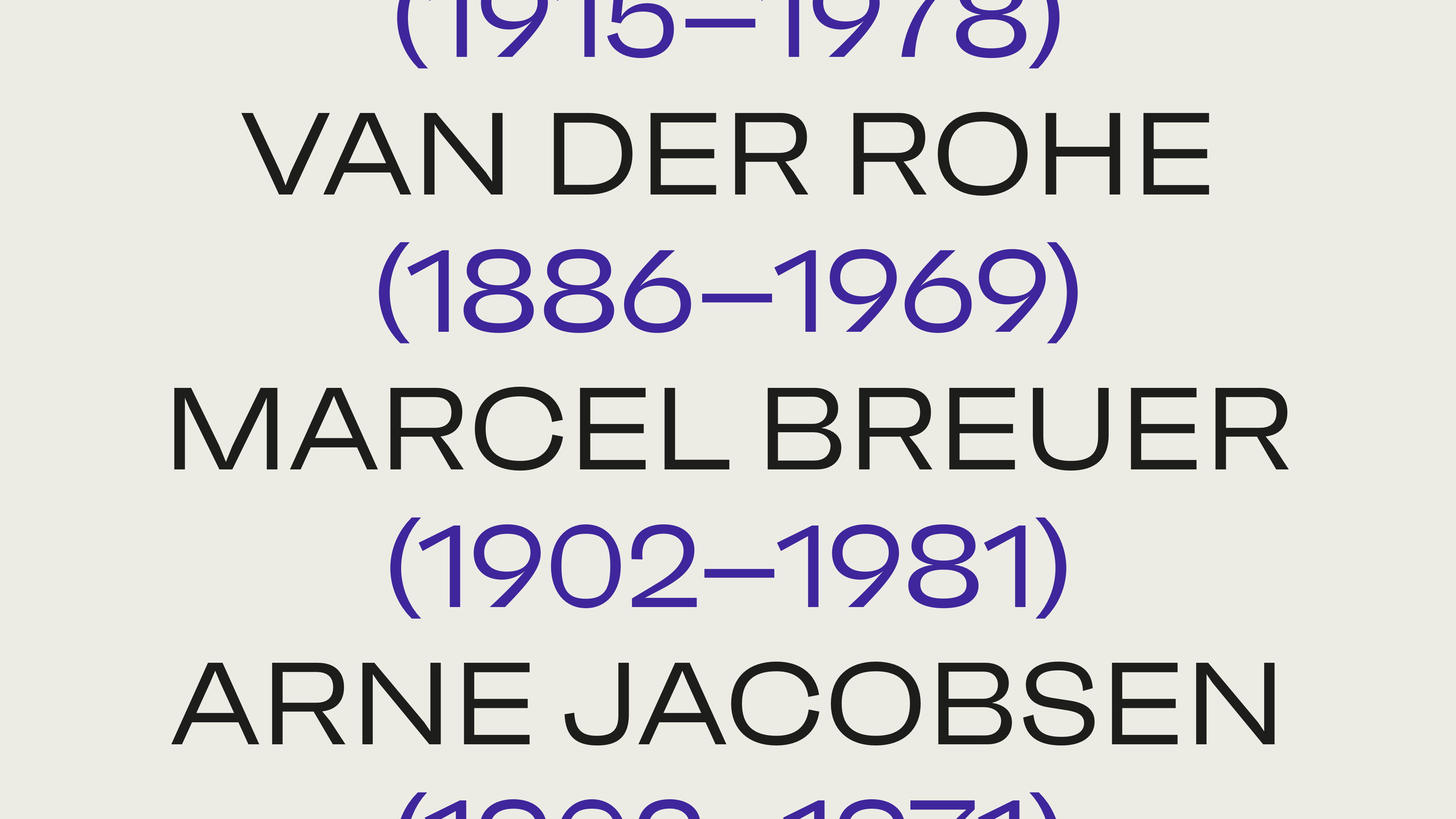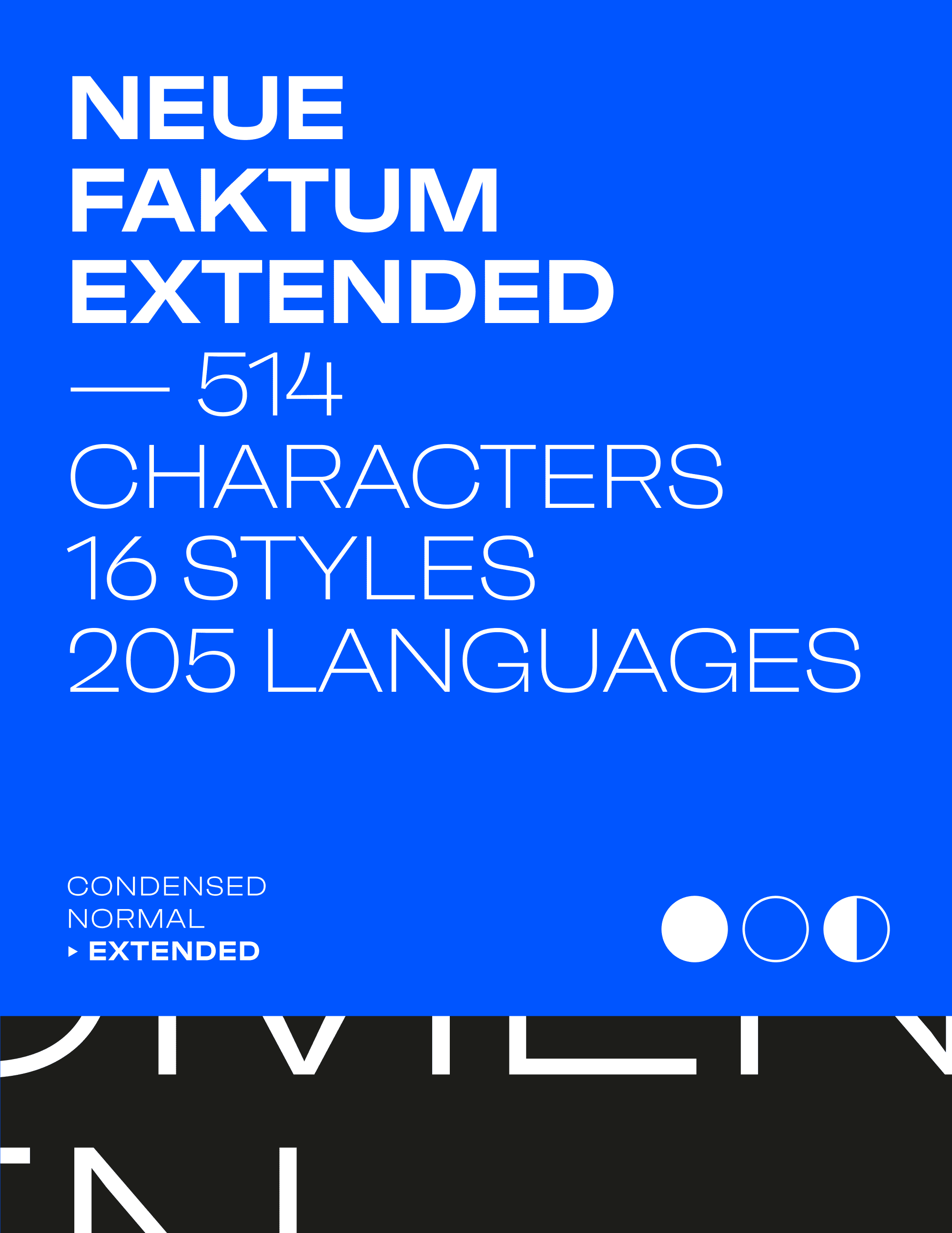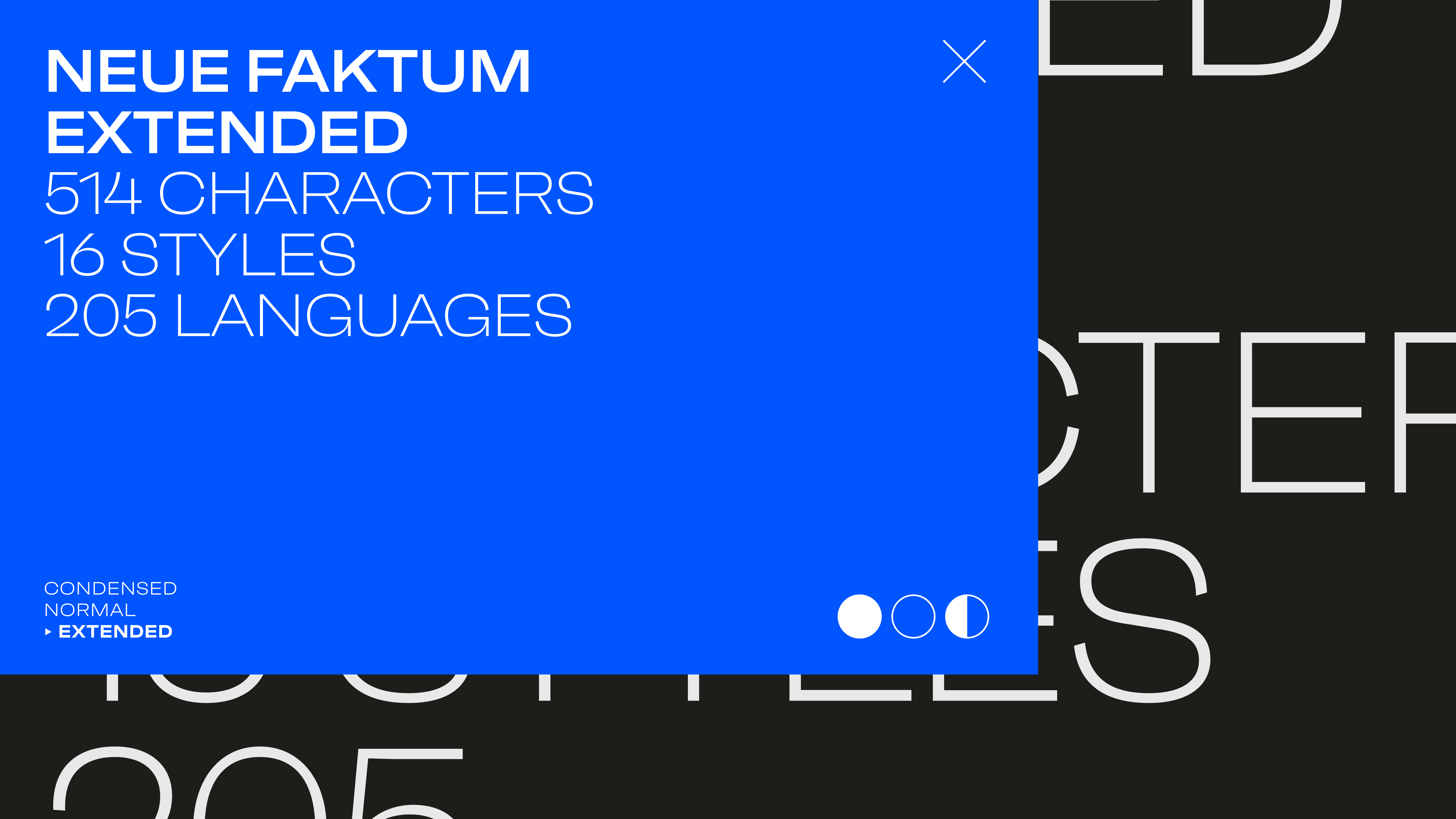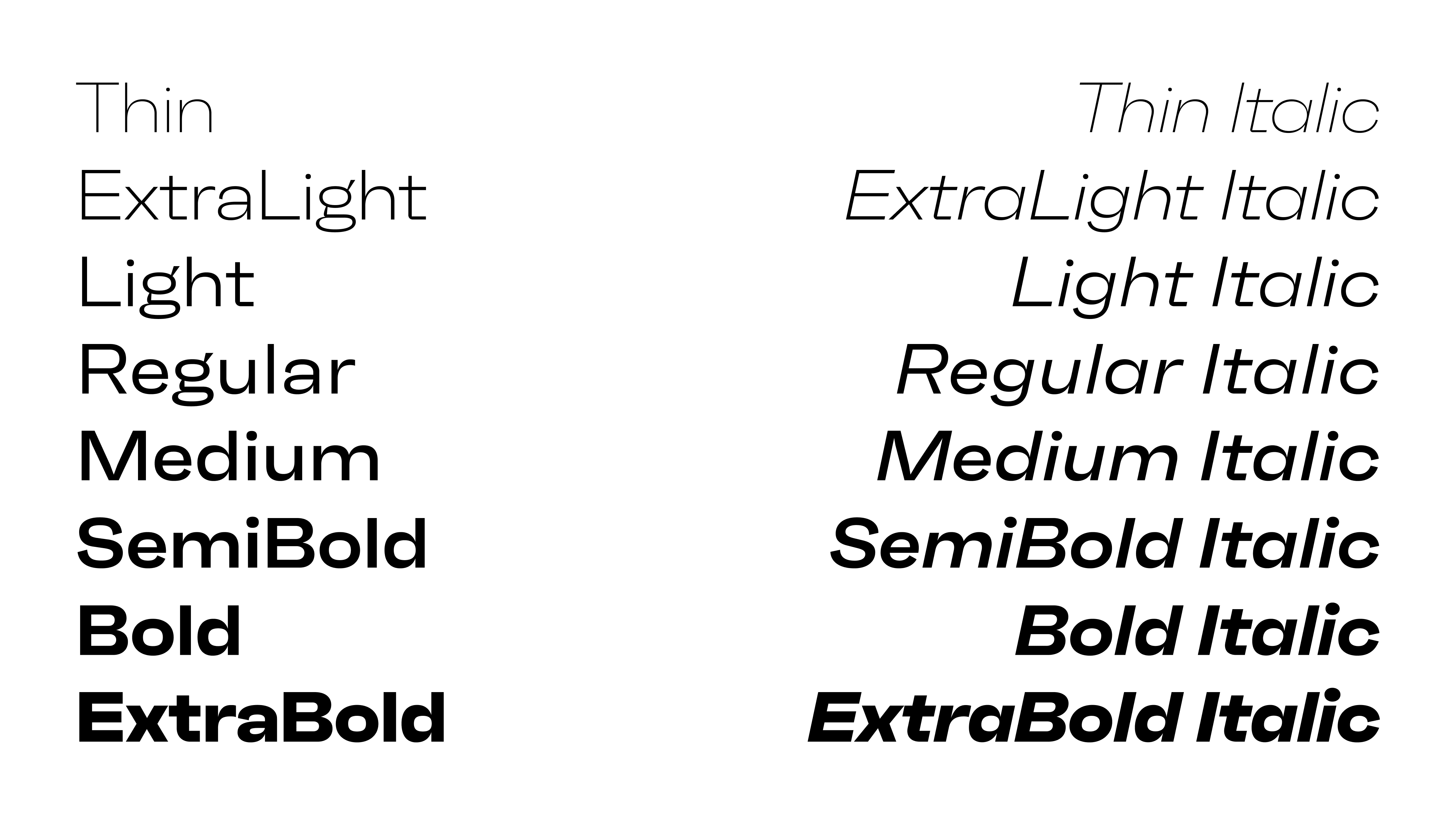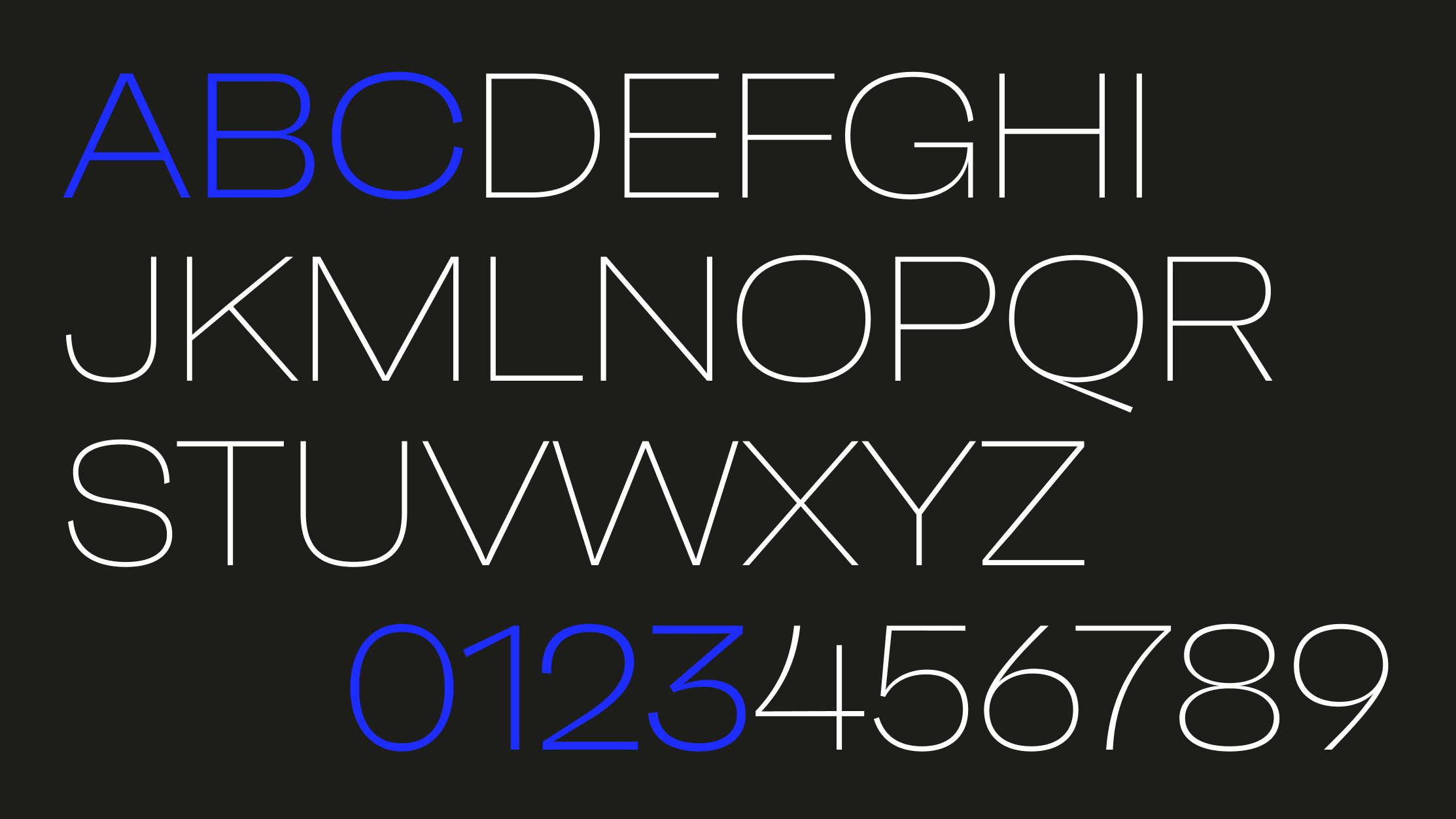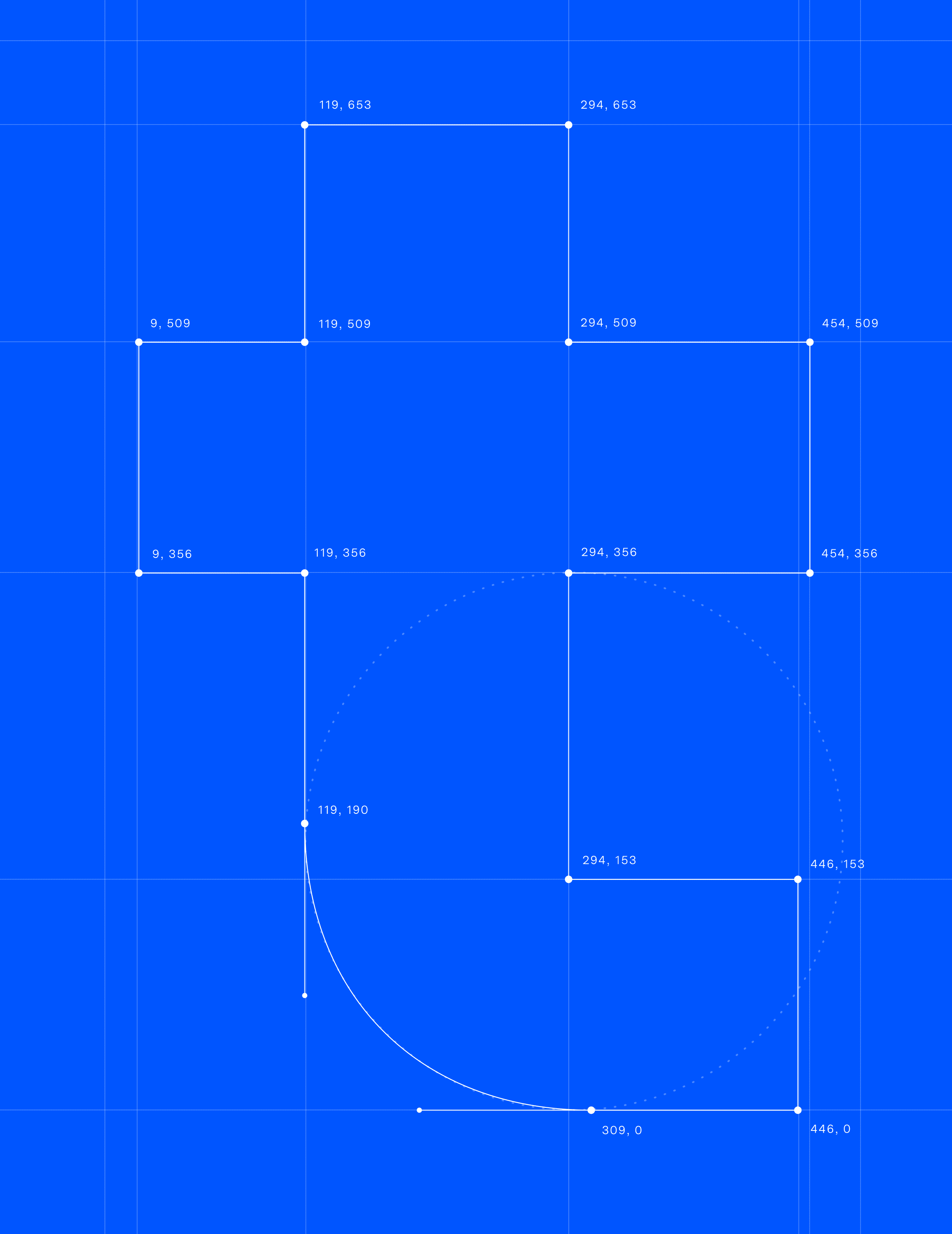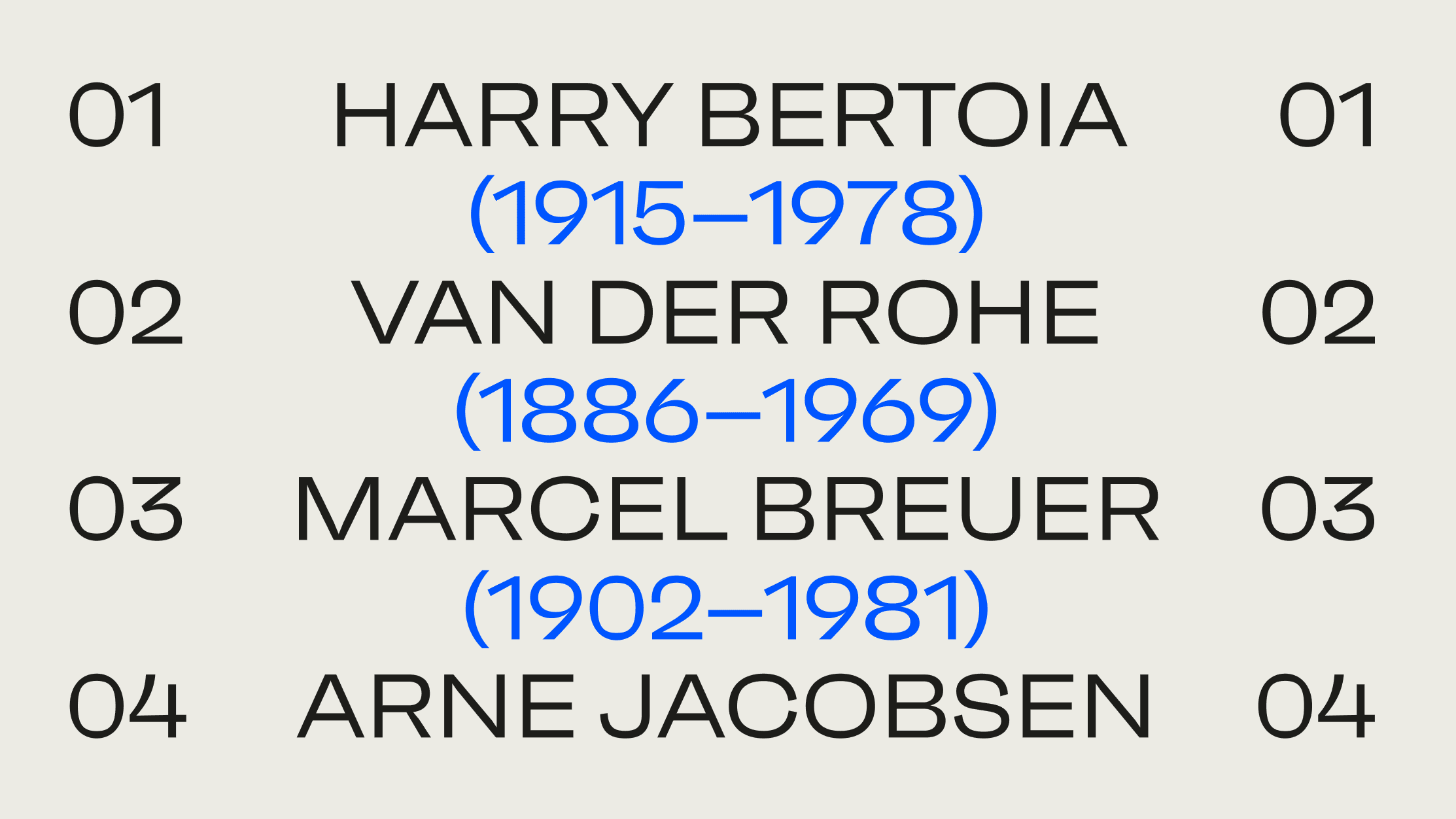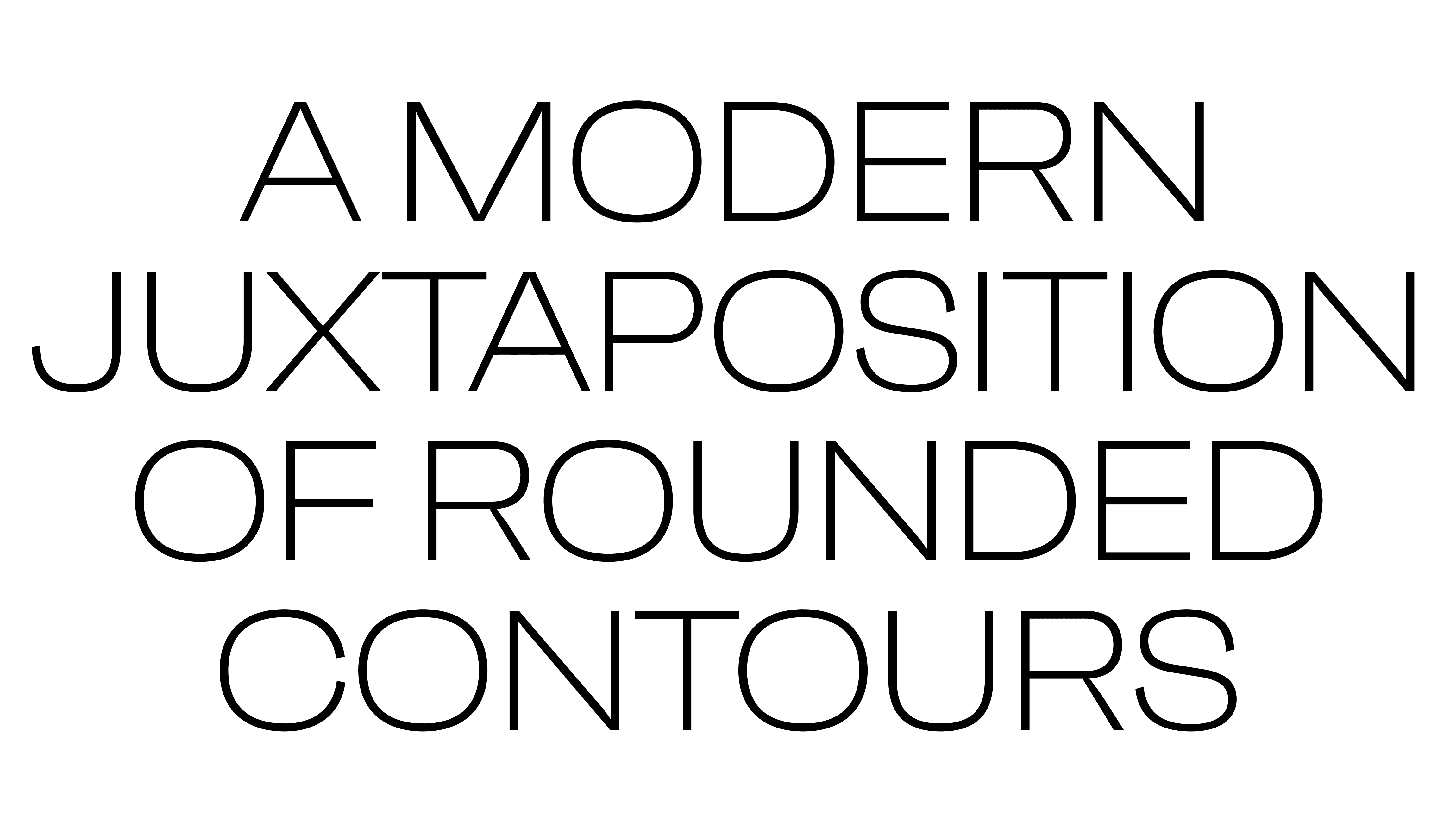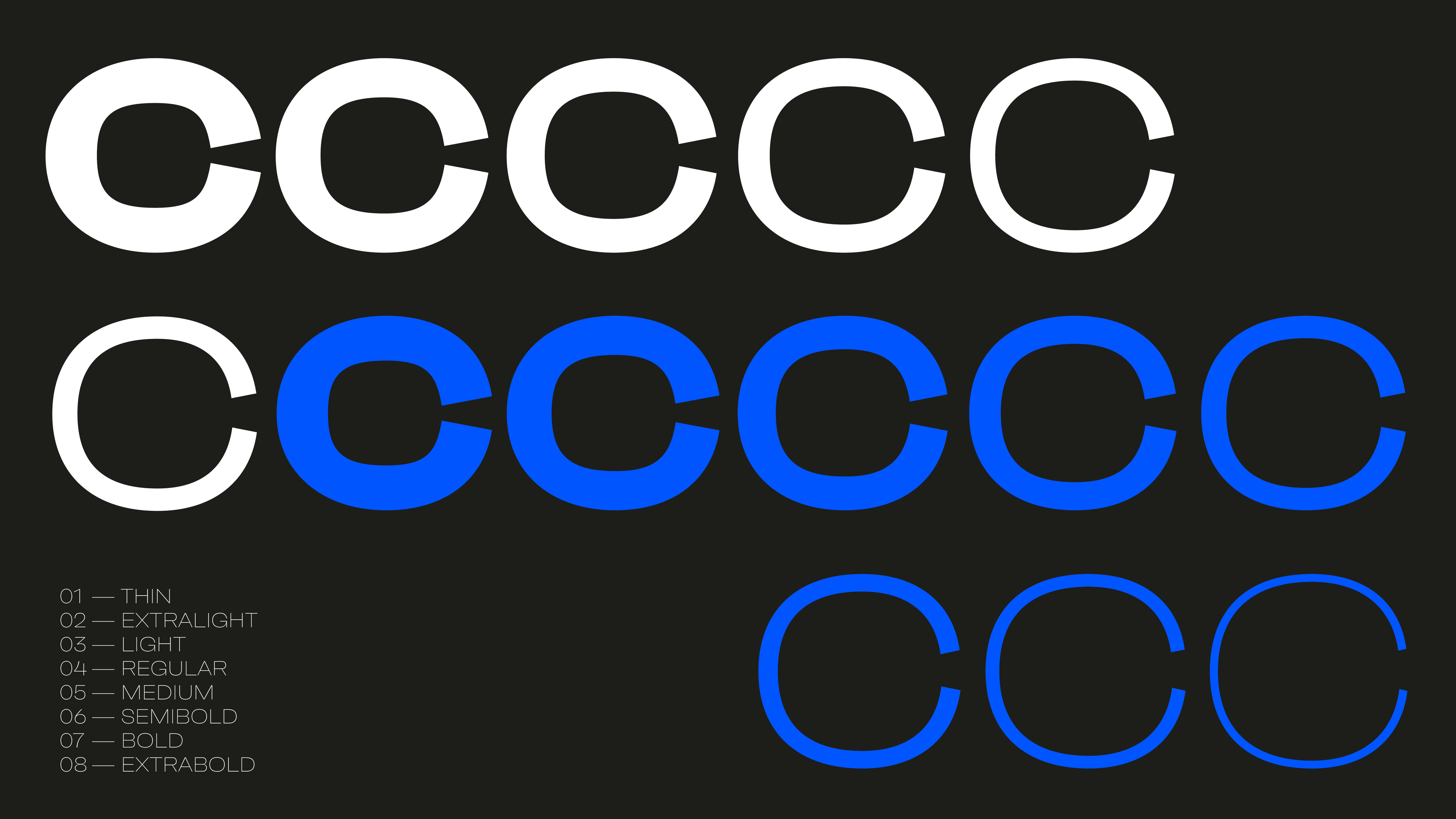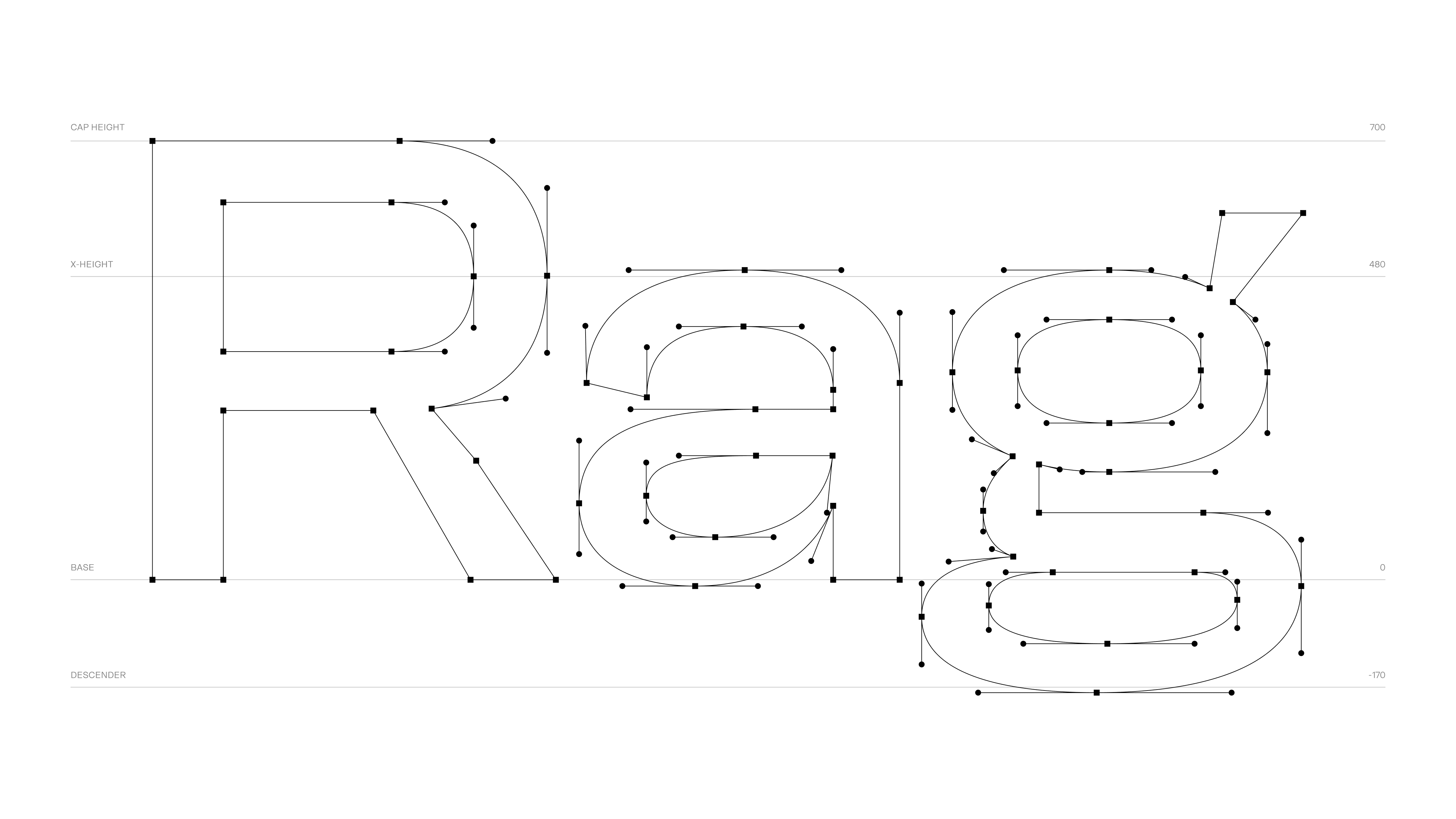
Neue Faktum Extended explores geometric precision and organic form through broader proportions and an open rhythm. Designed for impactful headlines and display settings, it combines clarity, character, and presence. Neue Faktum is also available in Normal and Condensed widths.